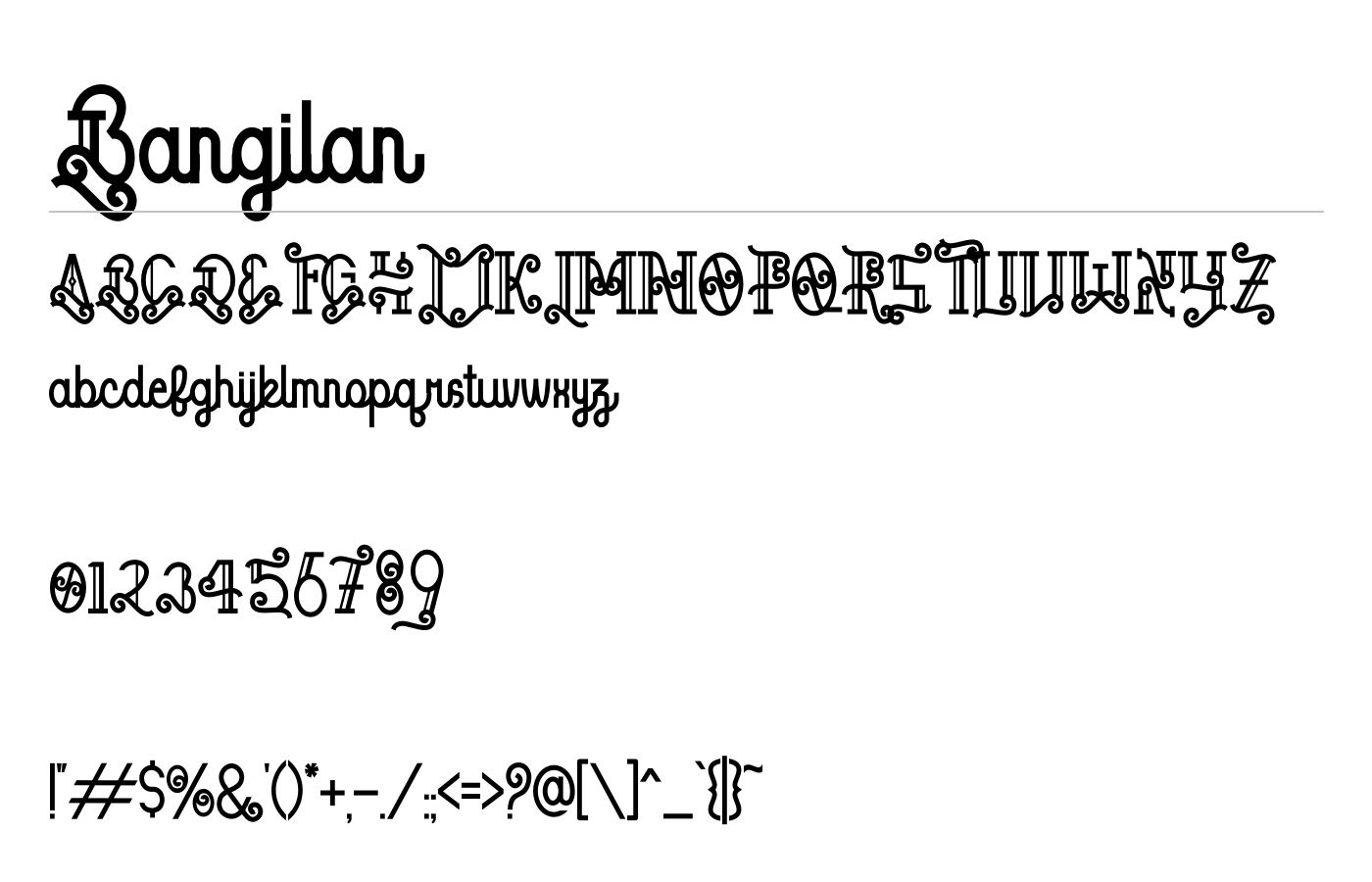
Bangilan is a decorative serif font with a vintage flair, characterized by its bold weight and intricate, ornamental details that enhance uppercase letters and numbers. The font combines a playful yet elegant personality, making it perfect for eye-catching headlines, logos, and creative branding projects that want to convey a unique and artistic vibe. Its distinctive style adds a touch of sophistication and charm, especially suited for design work that aims to stand out with a whimsical, crafted feel.
Bangilan Font
About Bangilan Font